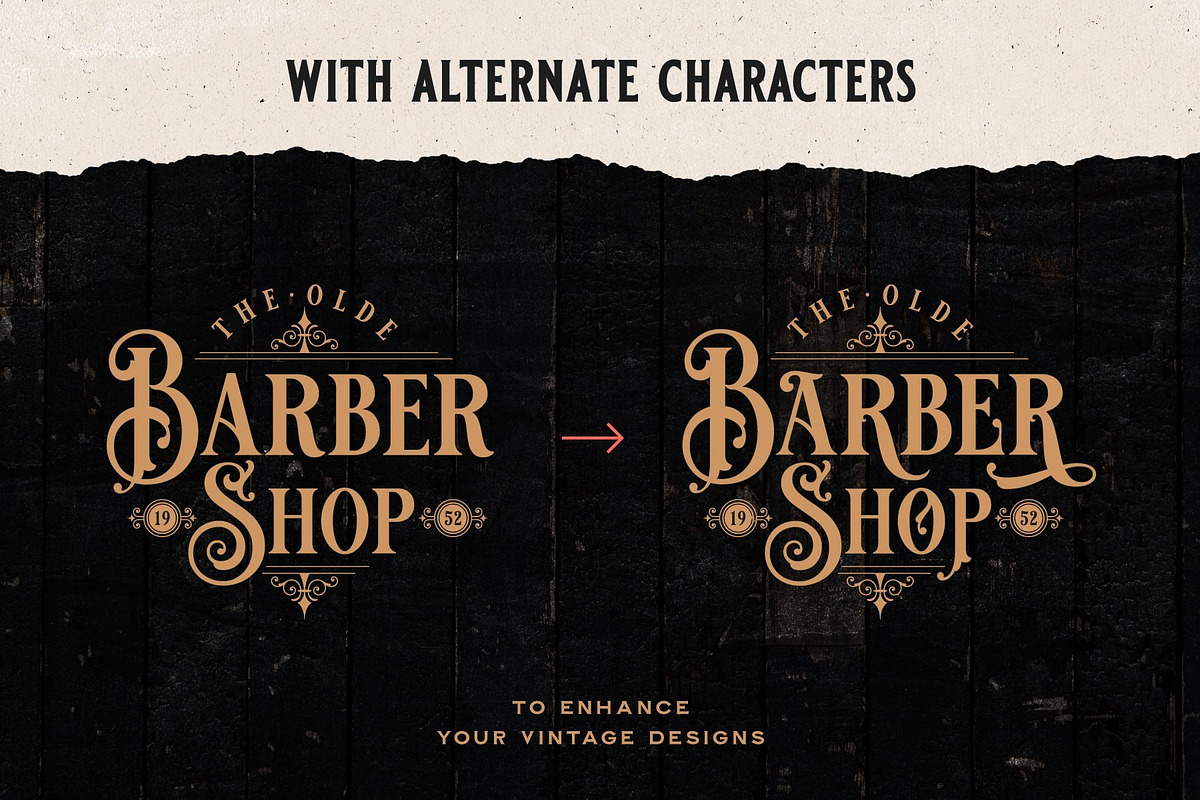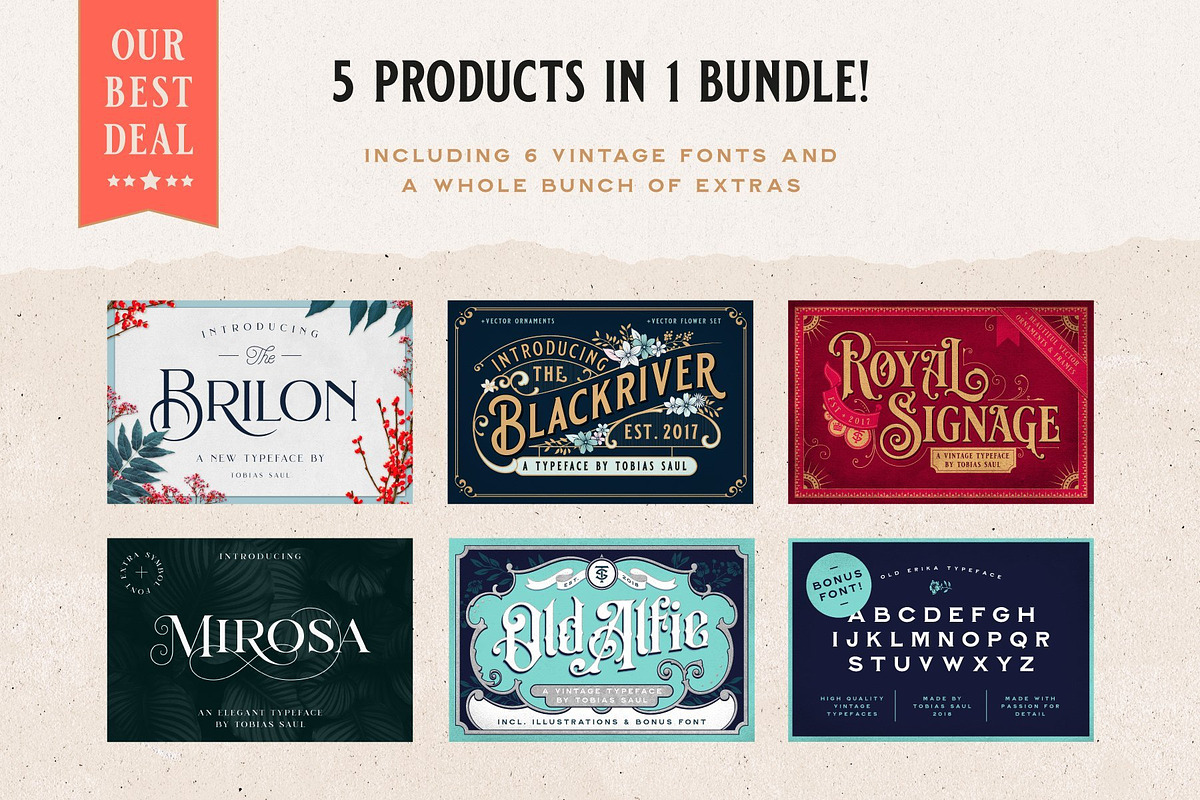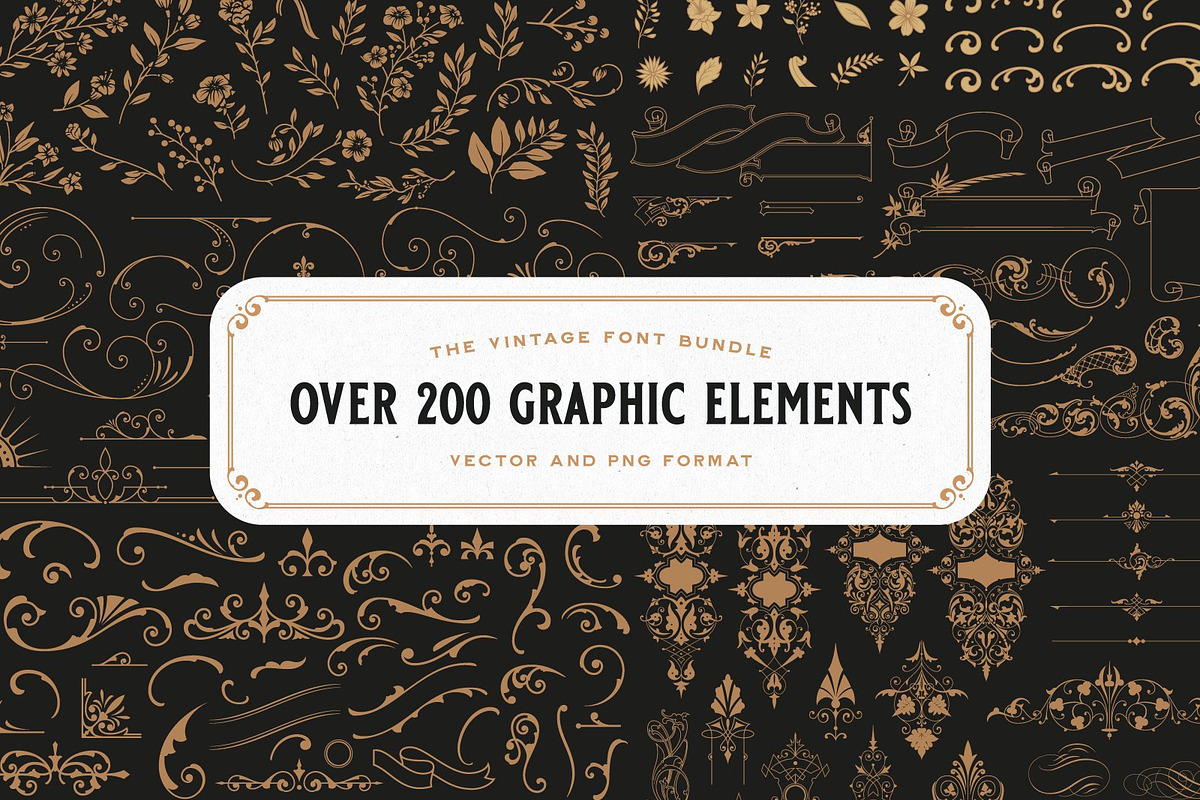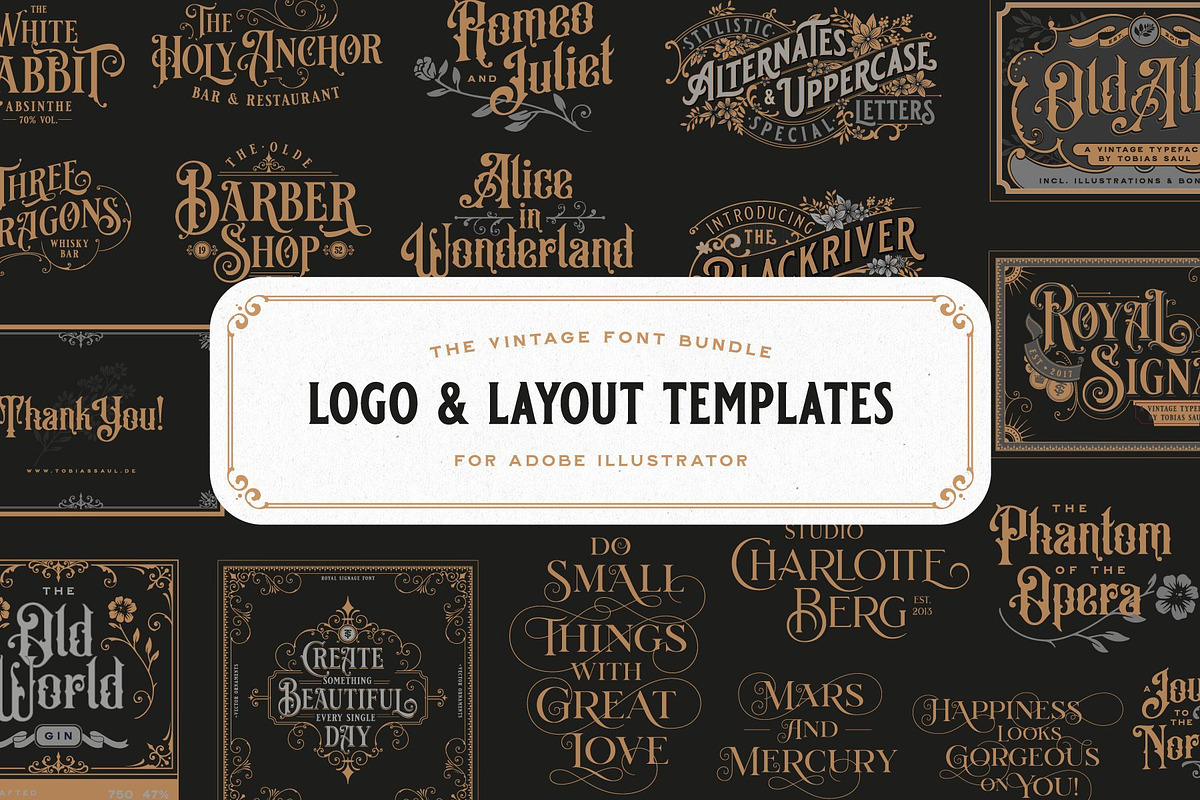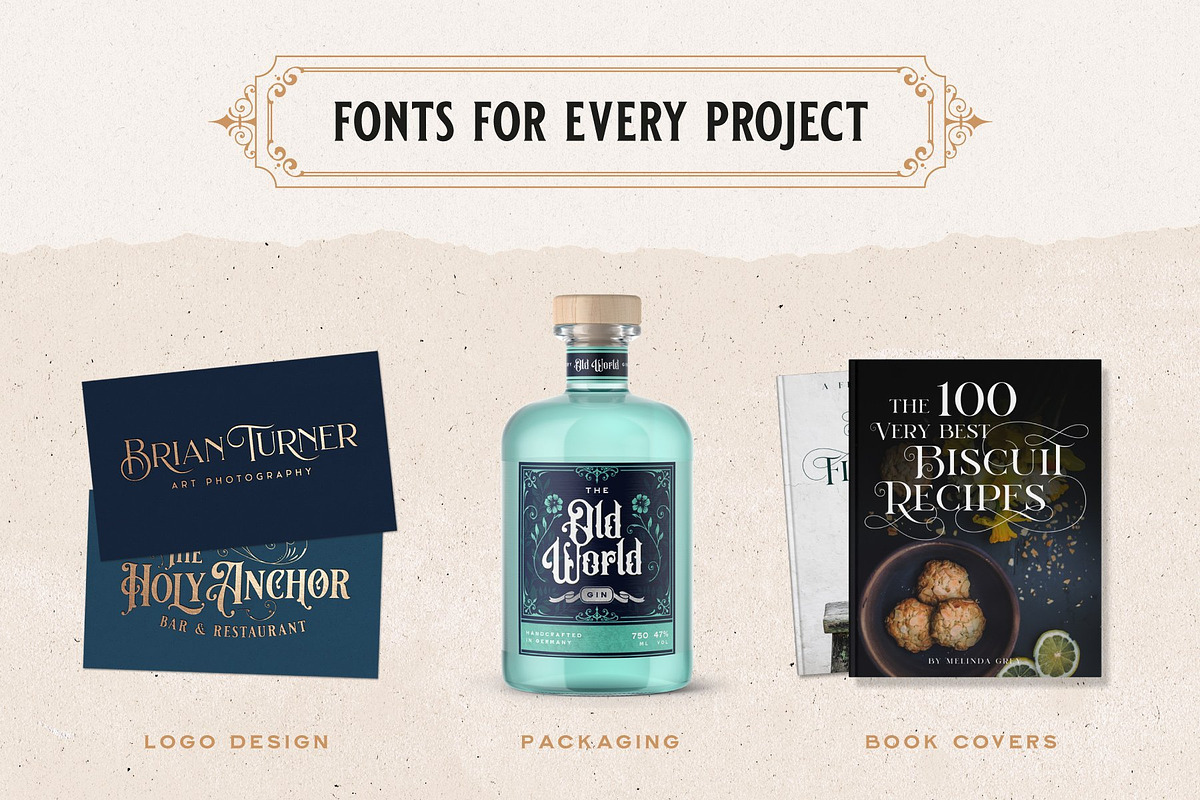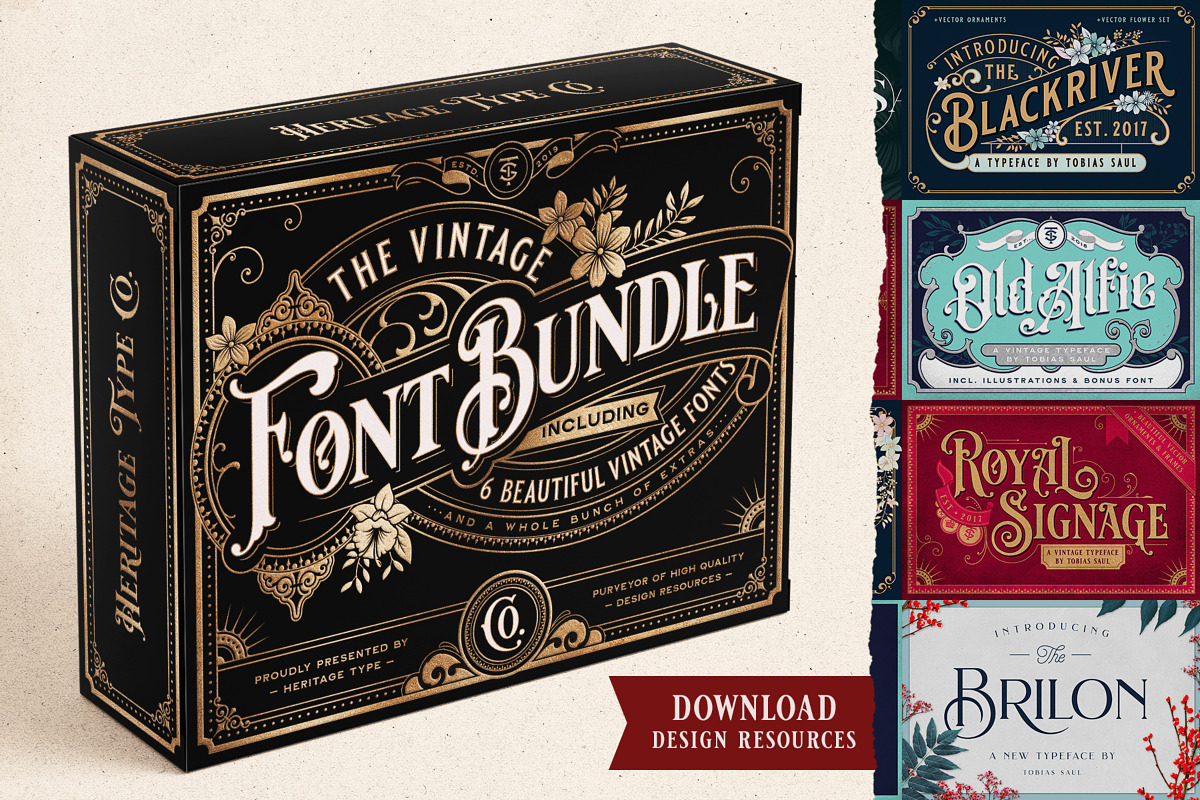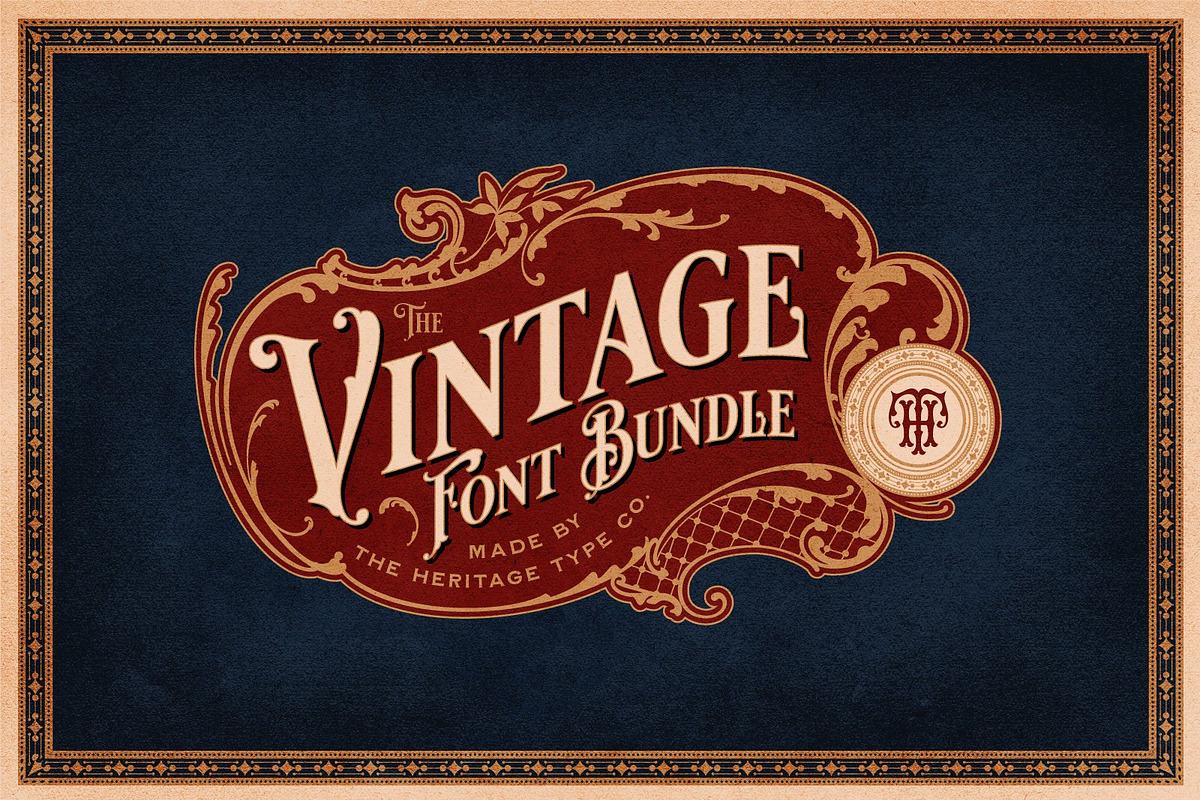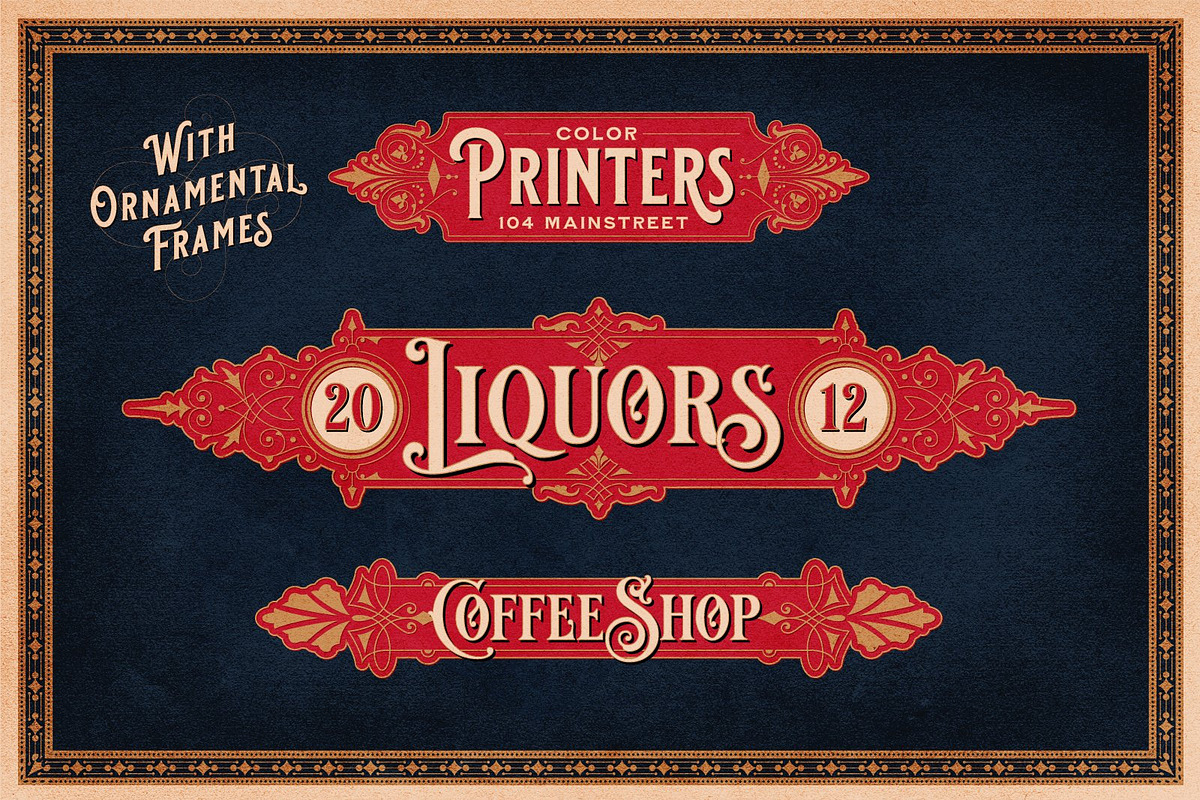
Vintage Font Bundle
The Vintage Font Bundle includes 5 full font packages of our all-time best vintage fonts. The font styles reach from clean to very ornate and work perfectly for headlines, logos, or packaging design. Furthermore, the bundle includes over 200 graphic elements and vector ornaments that give you endless design possibilities. This makes the set perfect for professional logo design in various styles for any application. Additionally, we created several logo templates that you can use for modeling in Adobe Illustrator with just one click. This allows you to create astonishing logos easier, faster, and more detailed than ever before.